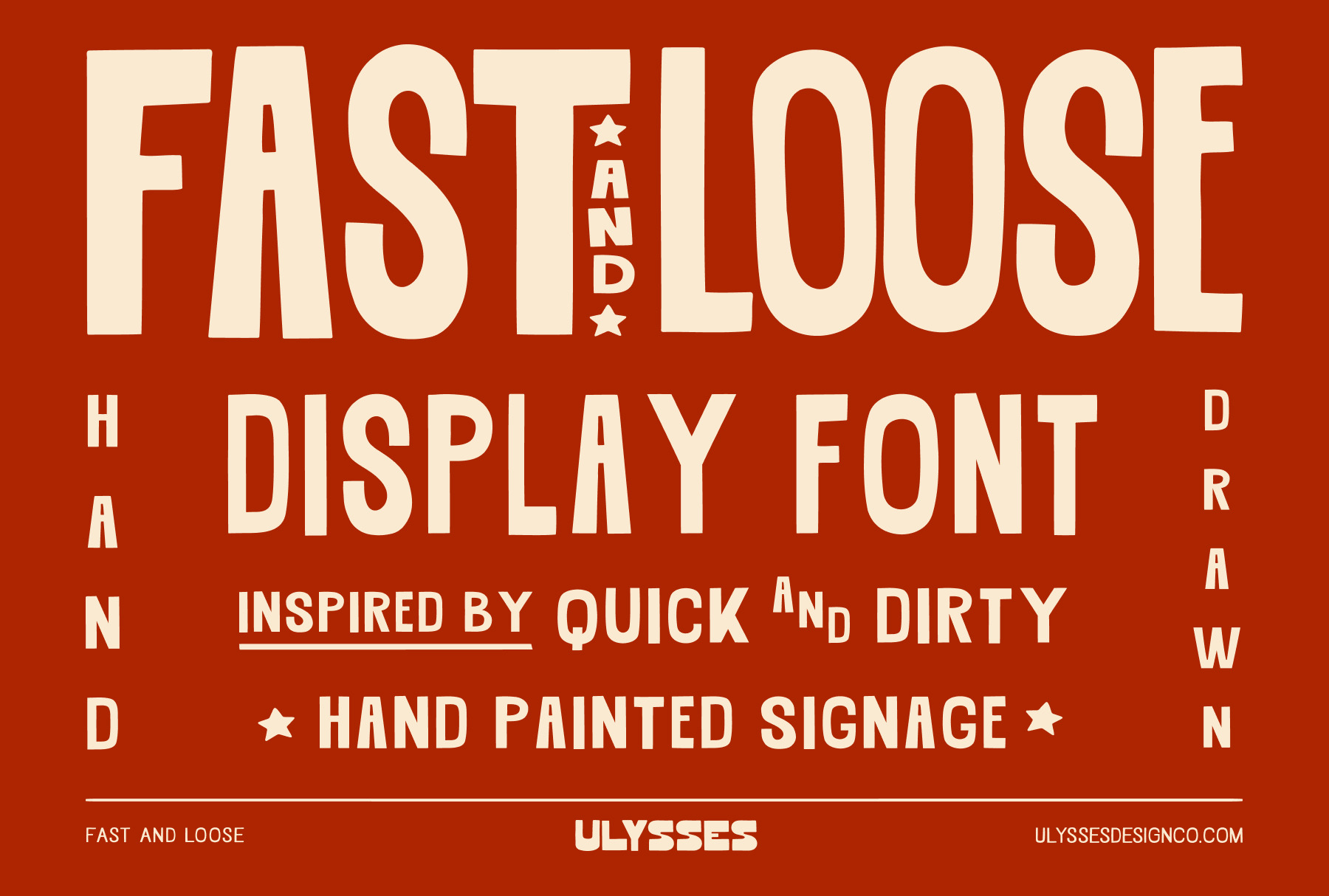
Fast & Loose Hand Drawn Display Font
Fast And Loose is a hand drawn display font from Ulysses Design Co. It is inspired by quick and dirty hand painted signage. Think a taco menu thrown up on the wall of a Mexican roadside gas station. Or BBQ menu painted on an old plank of wood. The looser the better baby.
Fast And Loose comes in two styles. Tall and Small. Pair them together to create brilliant branding and killer collateral. Use Tall for high and mighty headings. Use Small for subtle sub headings.
Use Fast And Loose on branding, collateral, merch, packaging to create an authentic hand painted feel. Works especially well for great for food and drink branding.